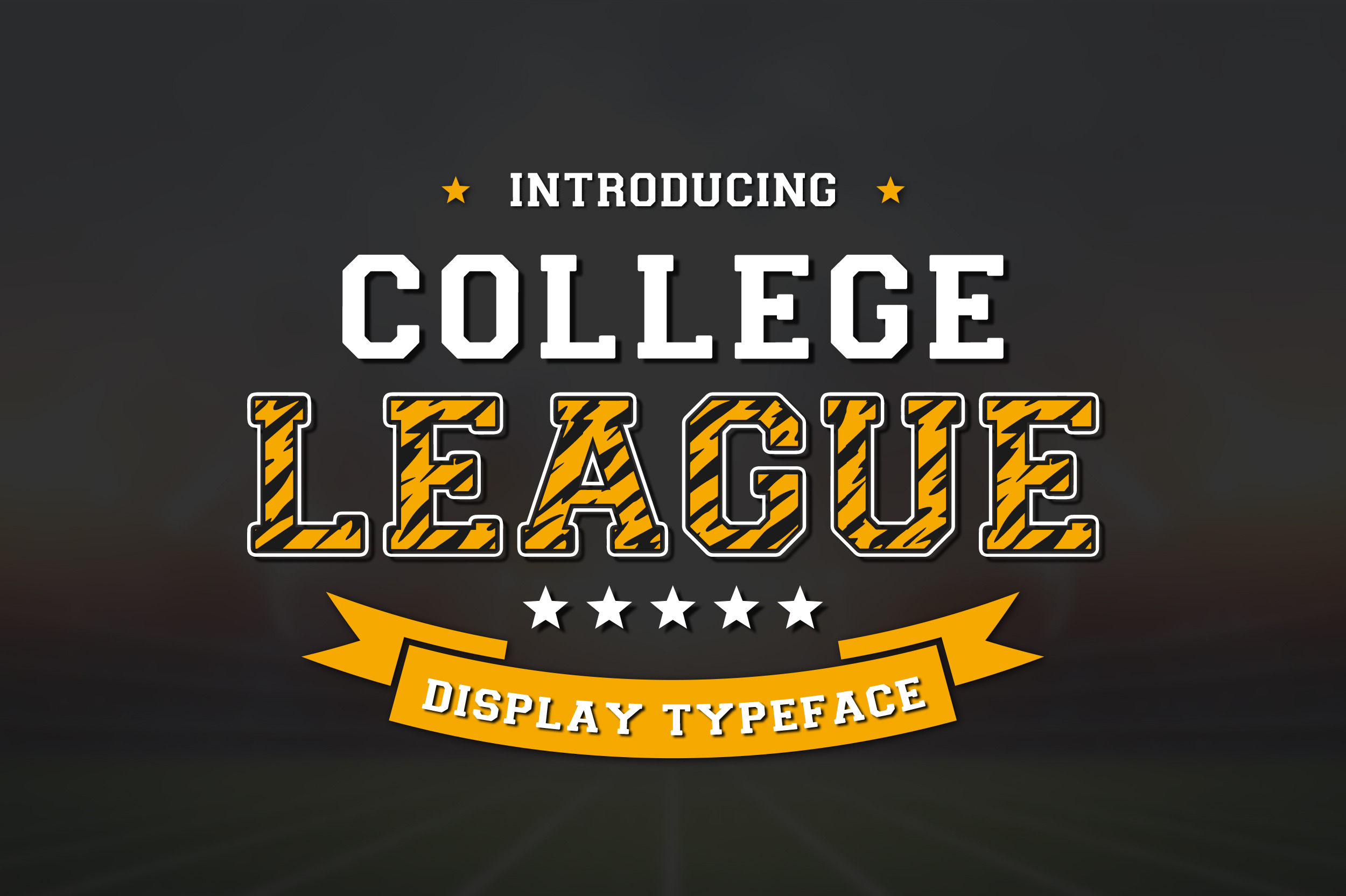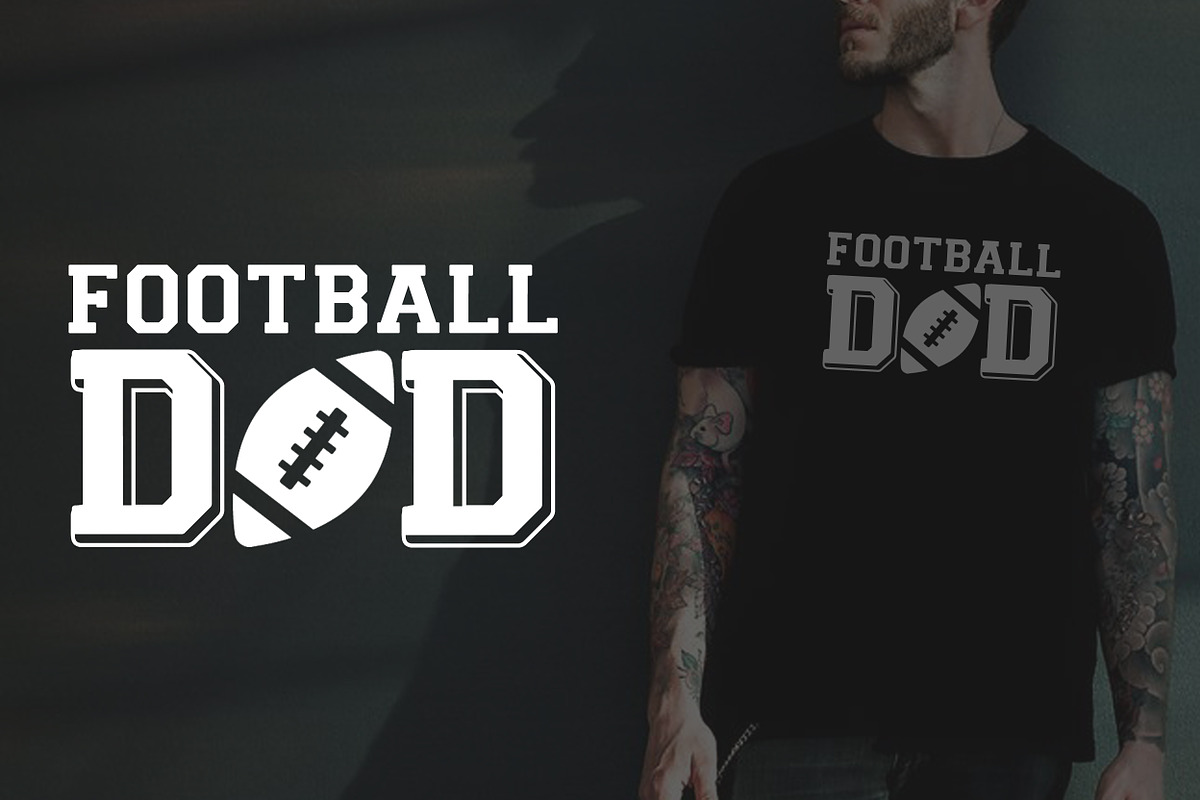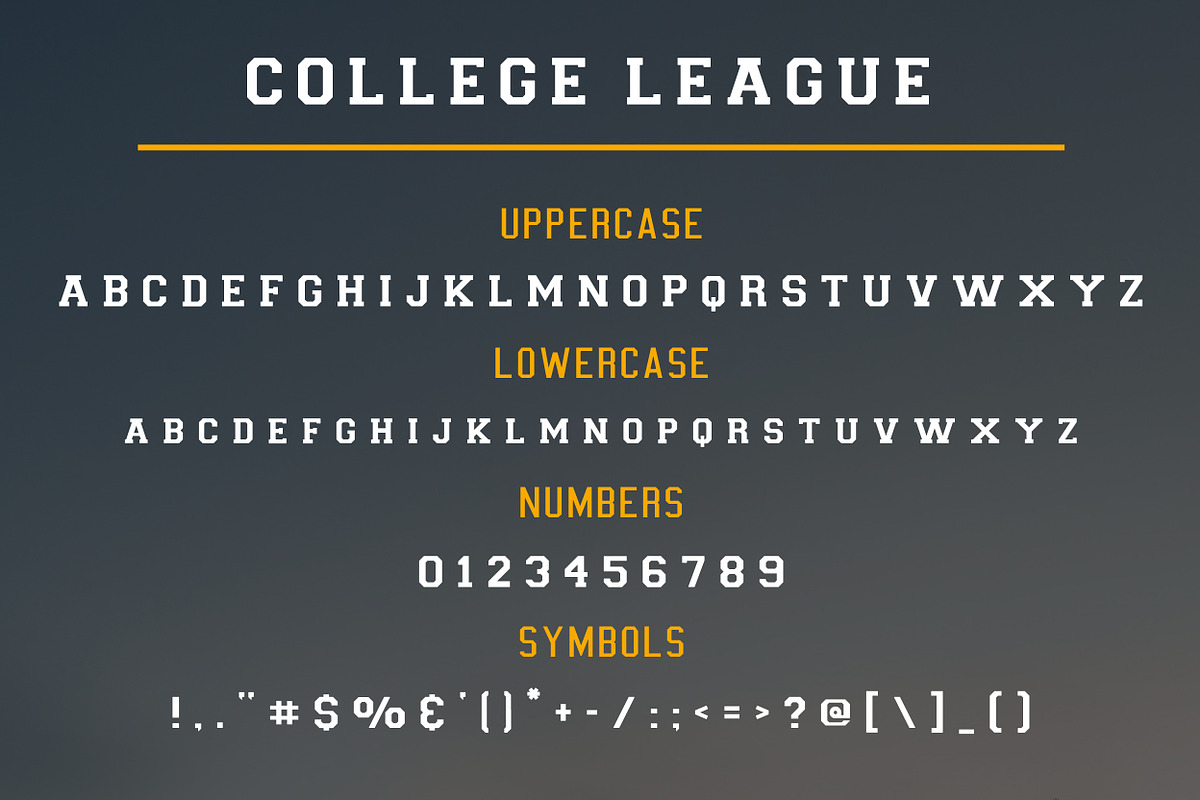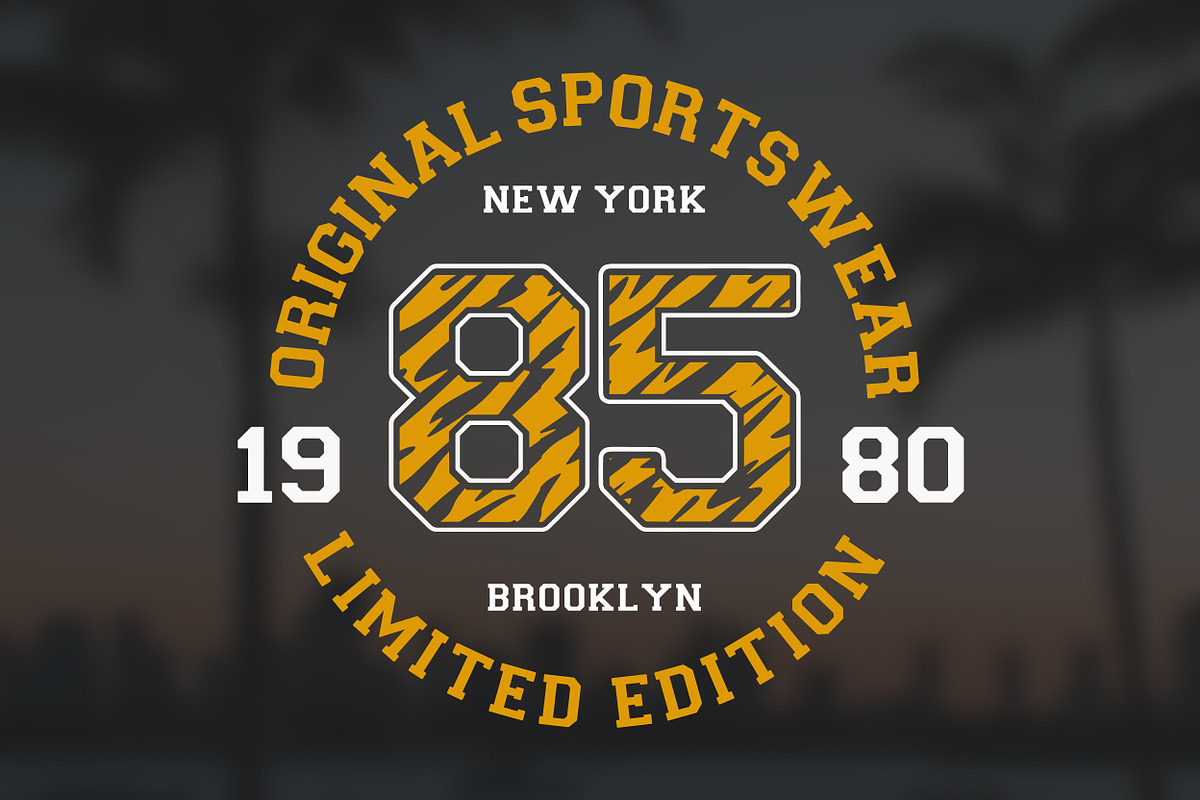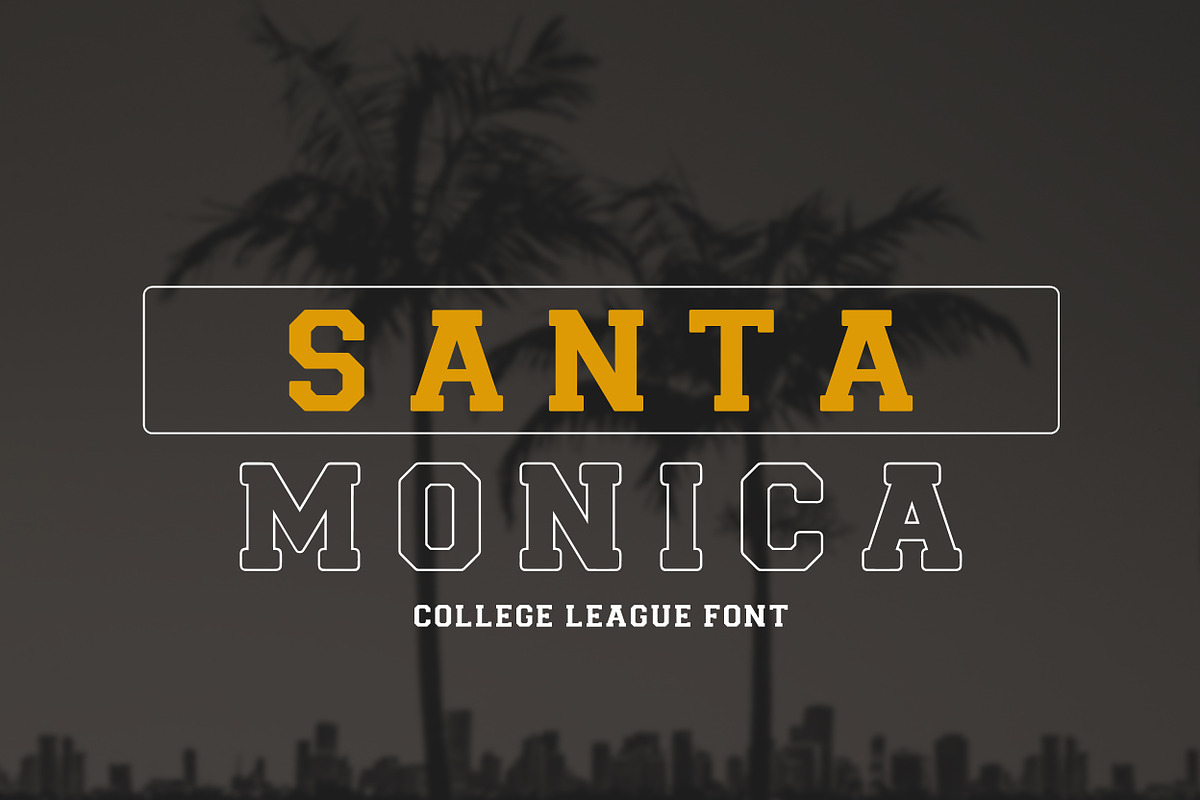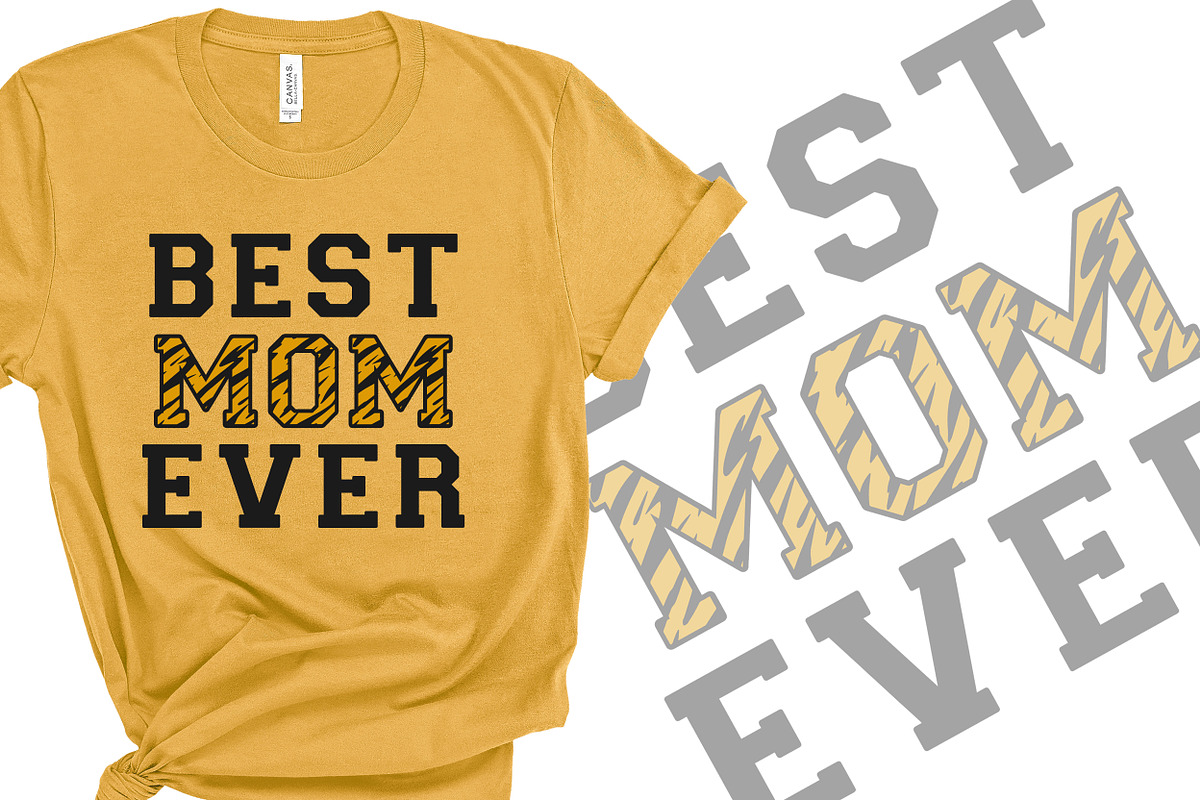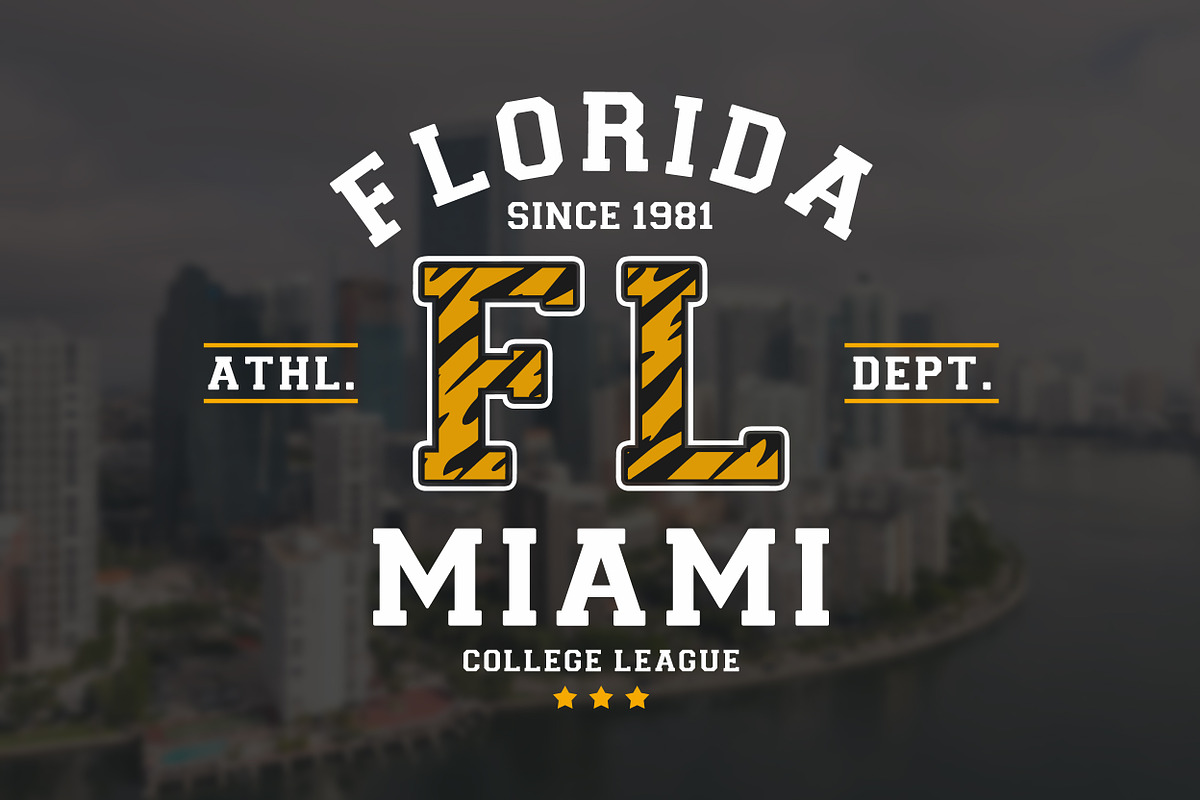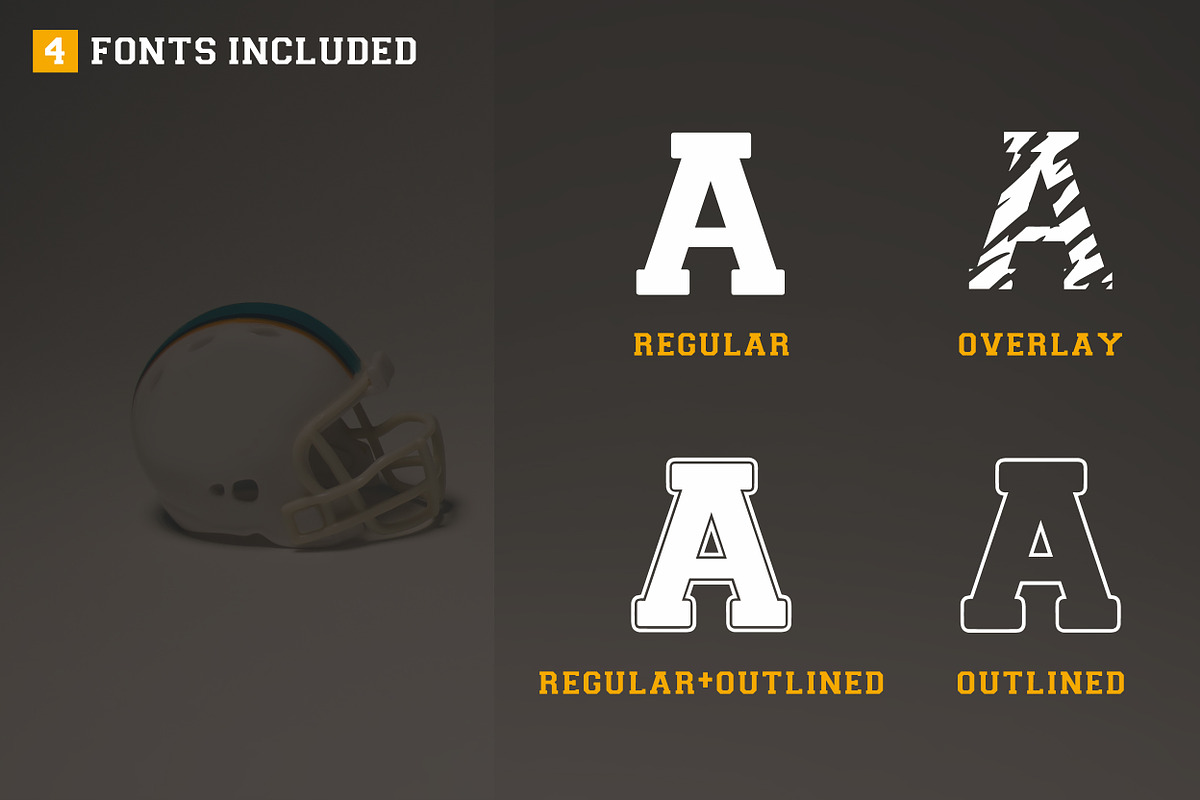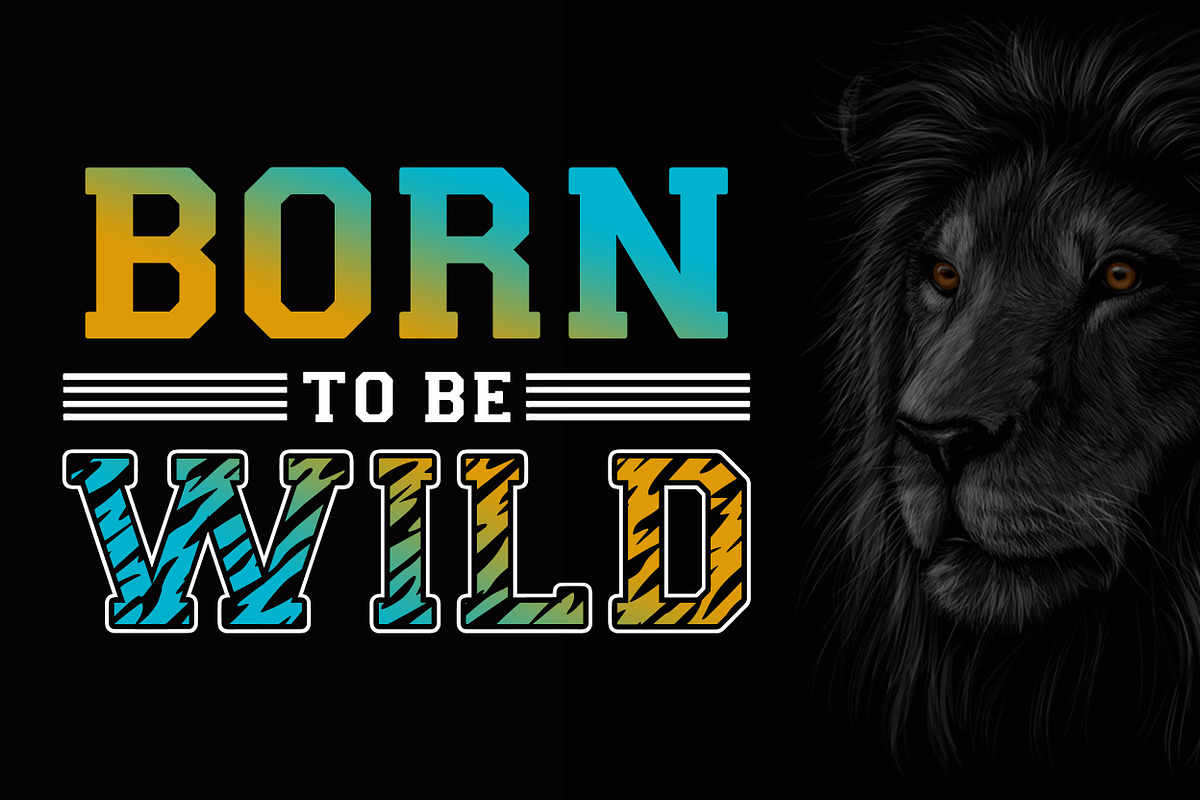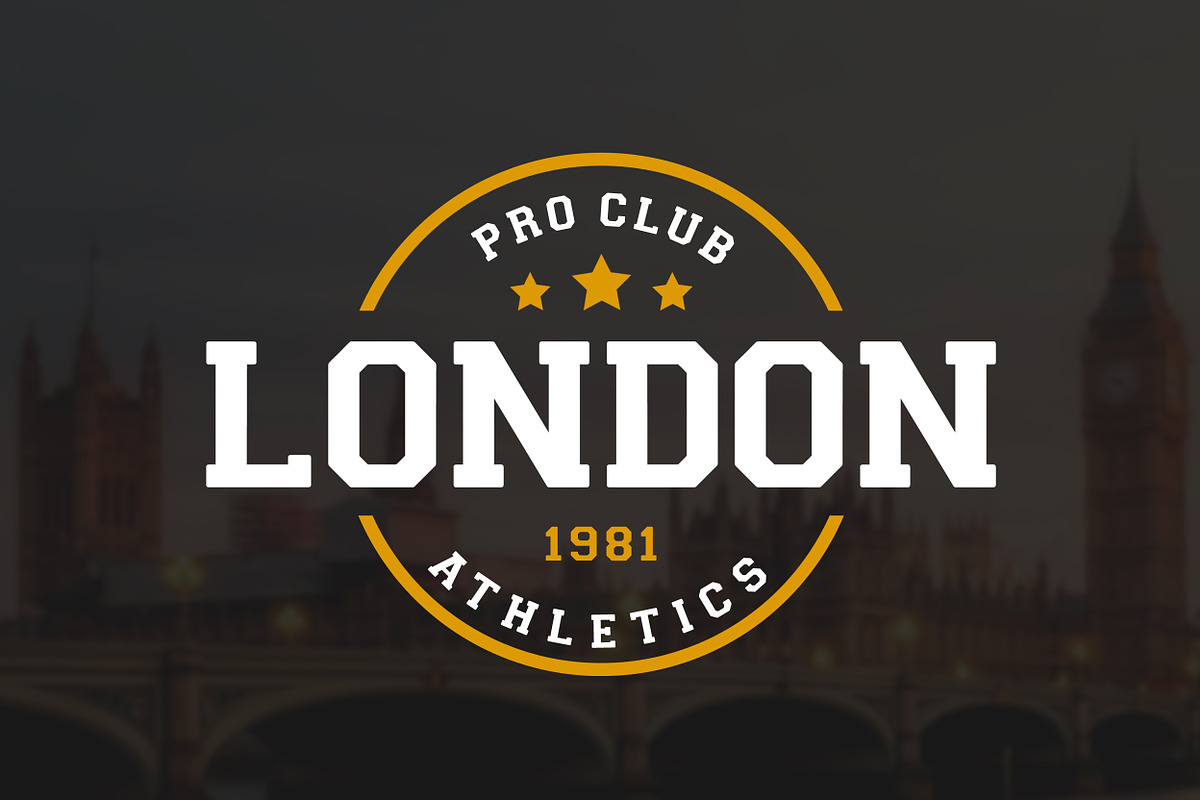
College League Font - Display Font
Are you ready to take your college-themed designs to the next level? Look no further than "College League", a versatile font that comes in bold, italic, outlined, and overlay styles! Perfect for creating eye-catching logos, team jerseys, posters, and more.
So if you're looking for a font that combines versatility and classic style, look no further than College League! With its bold, italic, outlined, and overlay options, you'll have everything you need to create stunning designs that capture the essence of college spirit. Get your hands on College League today exclusively on Creative Market!